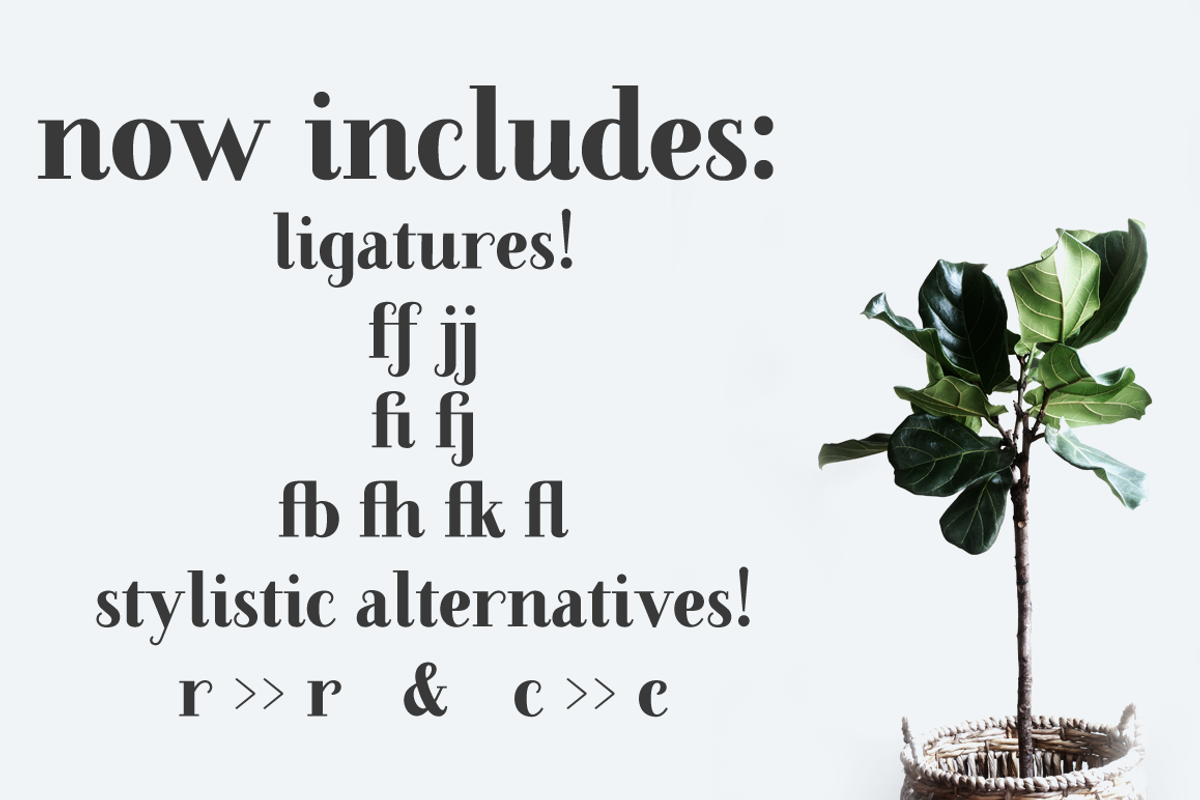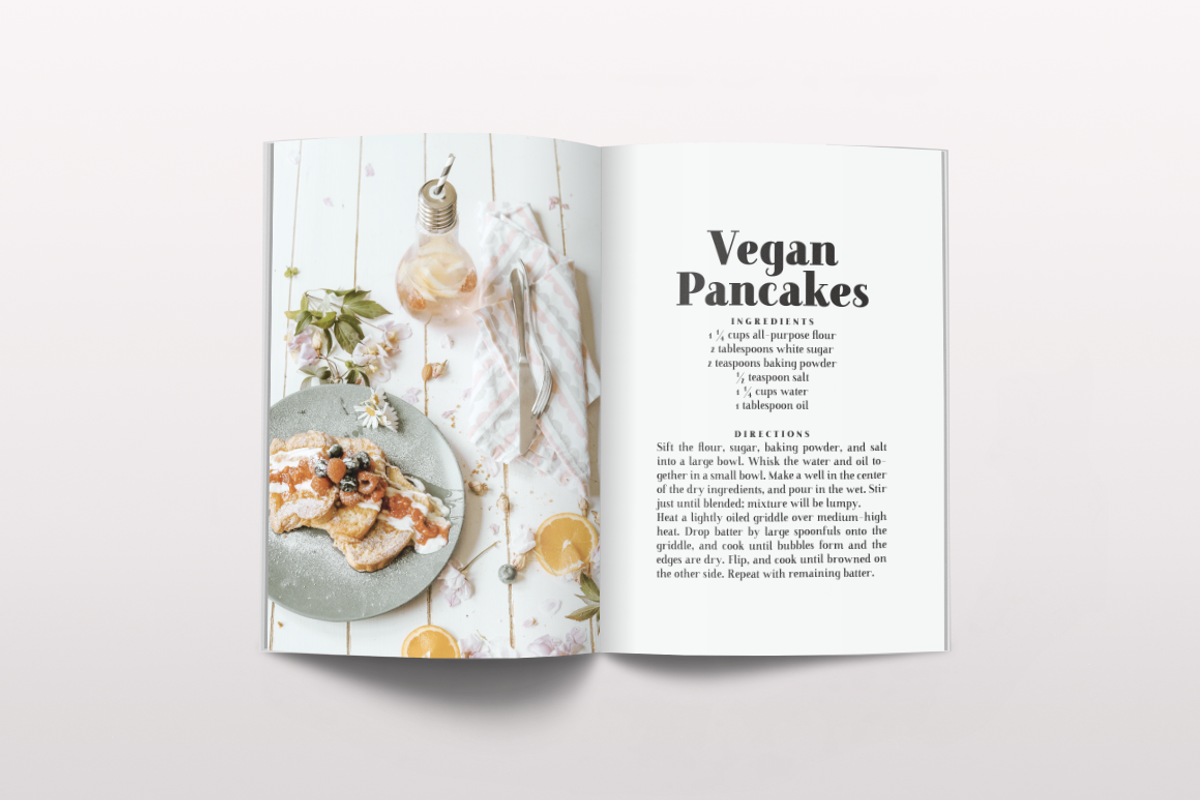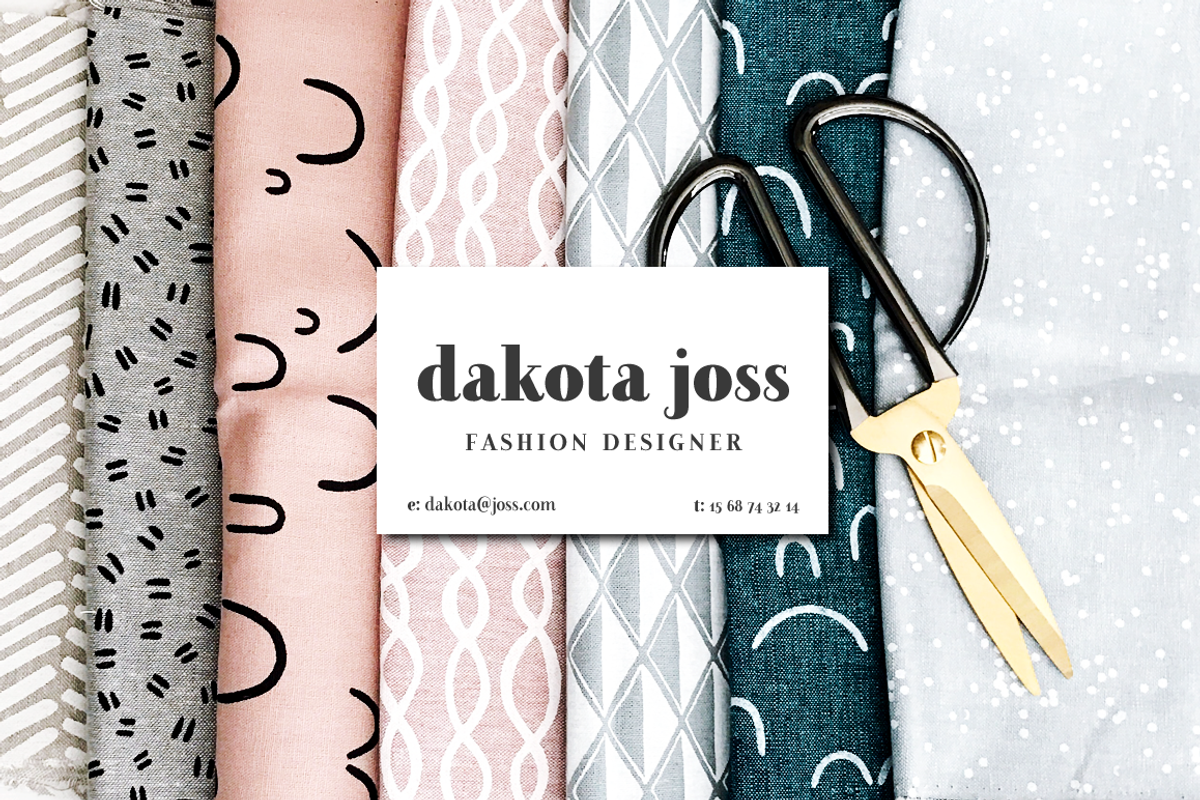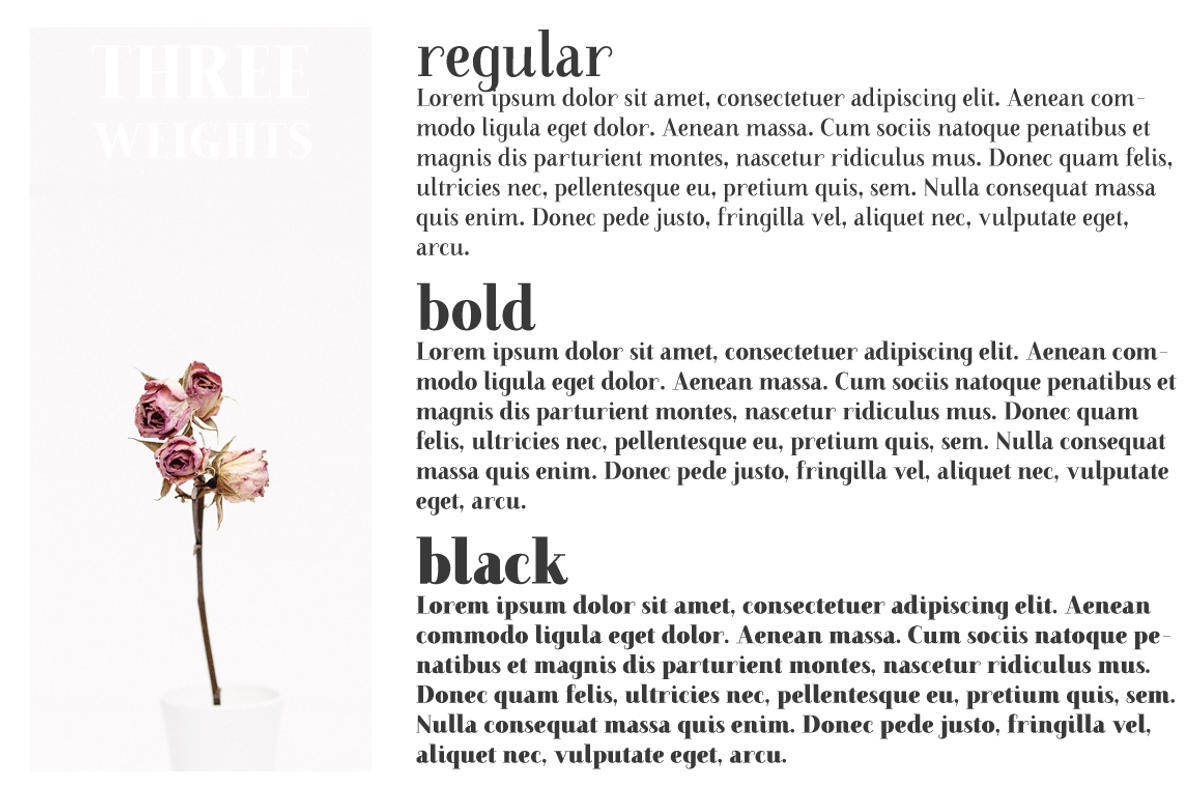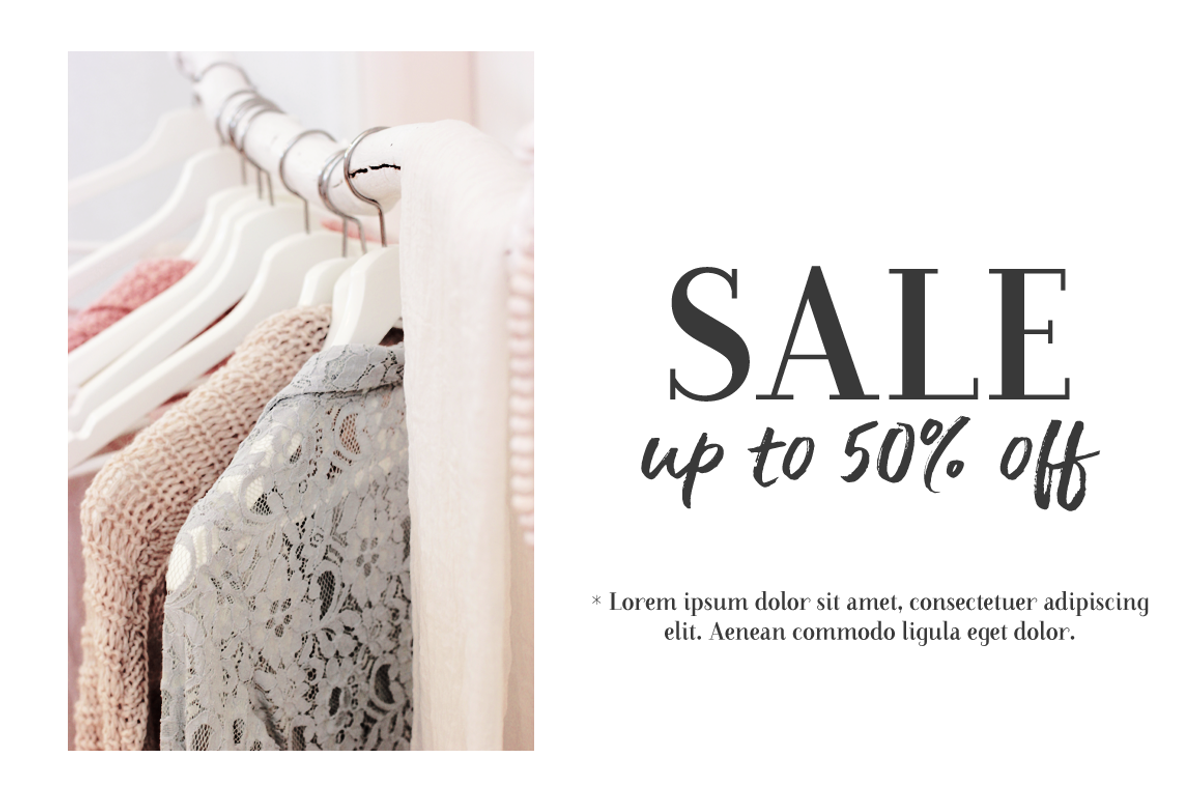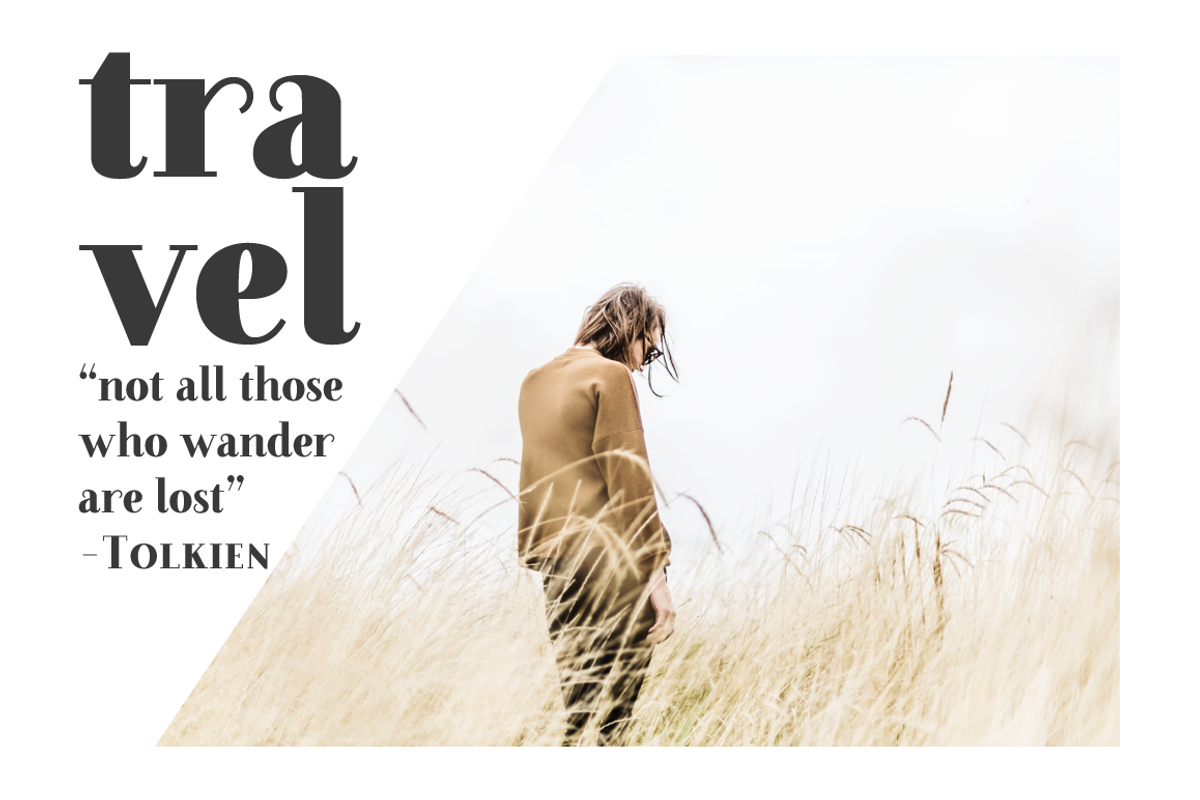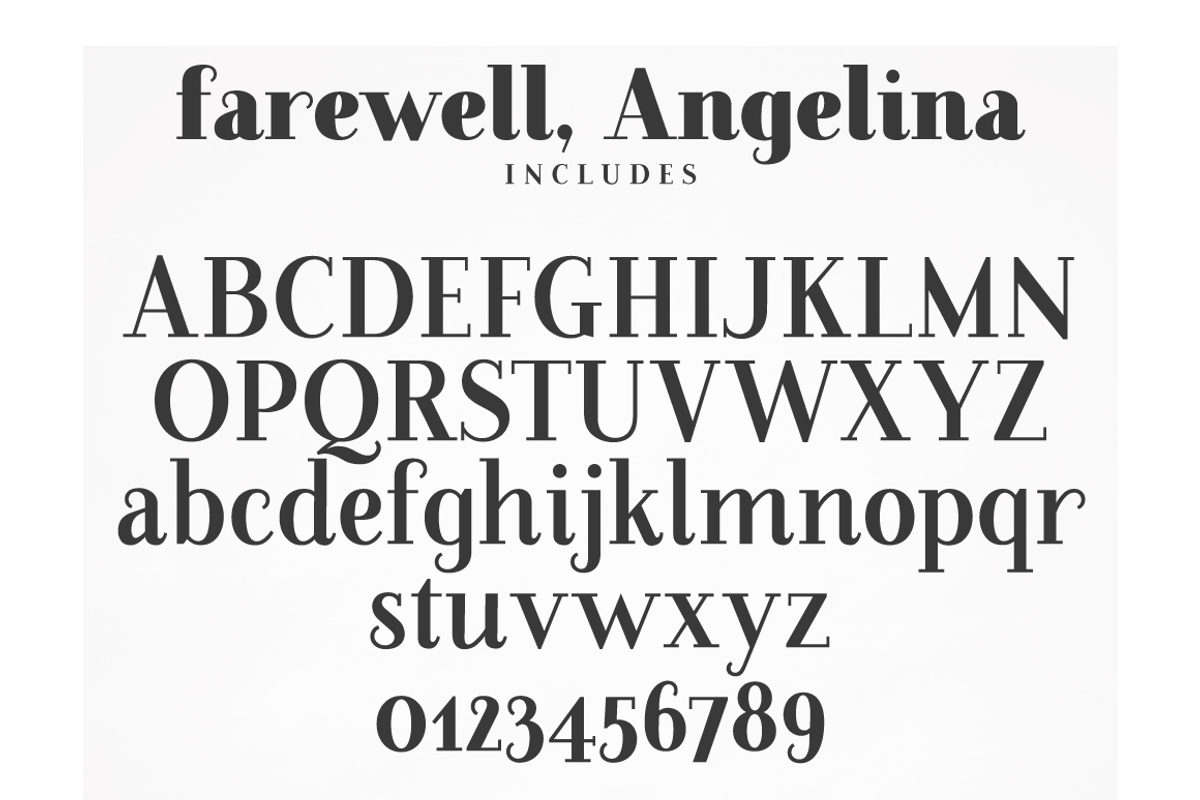
Farewell Angelina Display serif font
Farewell, Angelina is an elegant serif display font with a feminine flair. It includes:
3 weights: regular, bold and black
punctuation and symbols
Farewell, Angelina is perfect for magazine layouts, creating logotypes, social media posts, branding and packaging.